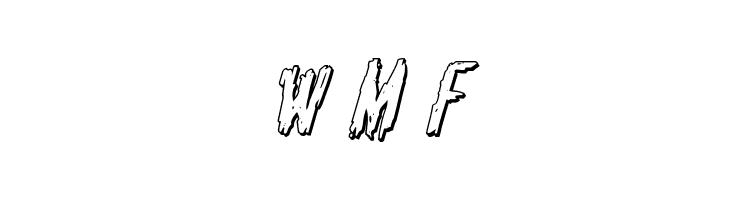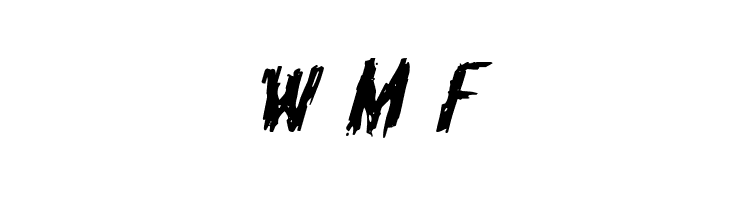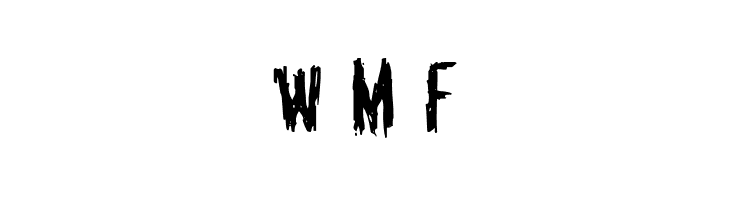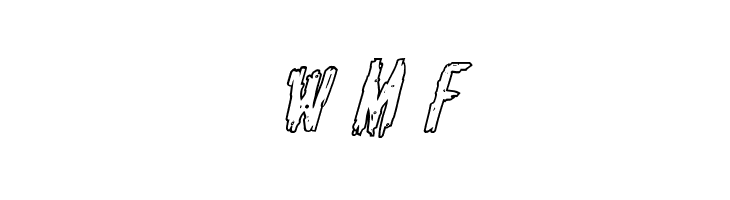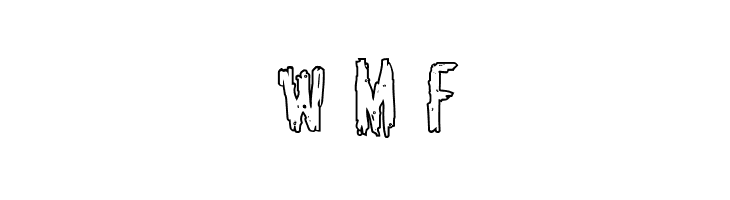
Monsterama Expanded Italic Font
A bold, textured, and italicized decorative font with an energetic style.
Monsterama Regular Font
A bold, jagged font with a horror-inspired, dripping effect.
Monsterama Bold Font
A bold, distressed font with a rugged, grunge-like appearance.
Monsterama Expanded Font
A bold, jagged font with a horror-themed, distressed appearance.
Monsterama 3D Regular Font
A bold, 3D font with a dripping, playful, and eerie style.
Monsterama Italic Font
A bold, jagged font with a horror-themed, scratched appearance.
Monsterama Condensed Font
A bold, jagged, and distressed font ideal for horror-themed designs.
Monsterama 3D Italic Font
A bold, 3D italic font with a rugged, textured appearance and playful style.
Monsterama Leftalic Font
A bold, jagged font with a horror-themed, distressed appearance.
Monsterama Condensed Italic Font
A bold, condensed, and italicized font with a jagged, distressed style.
Monsterama Bold Italic Font
A bold, italicized font with a rugged, hand-drawn appearance.
Monsterama Outline Italic Font
A bold, jagged outline font with a rugged, distressed appearance.
Monsterama Outline Regular Font
A jagged, spooky outline font with a playful, hand-drawn style.